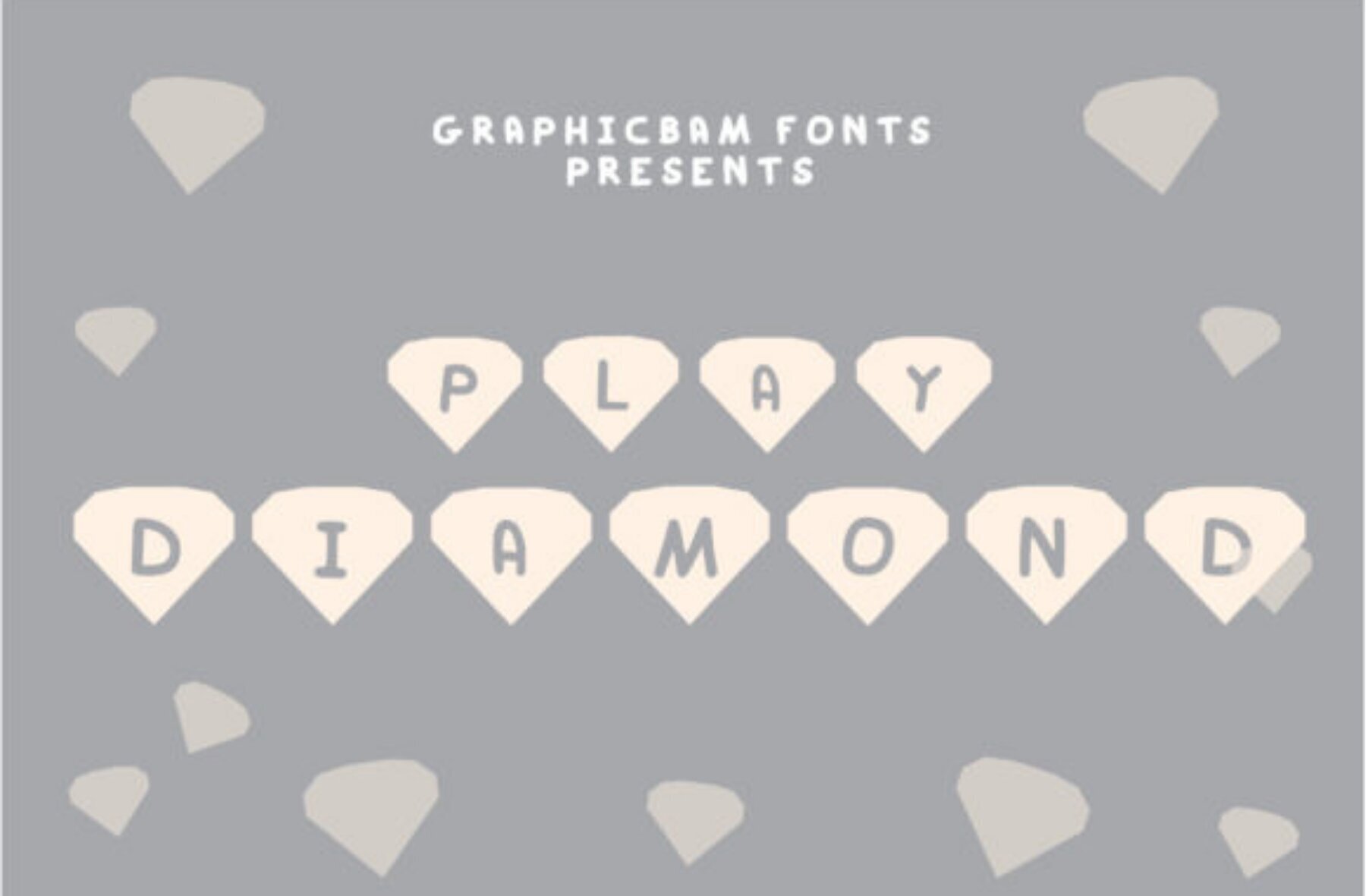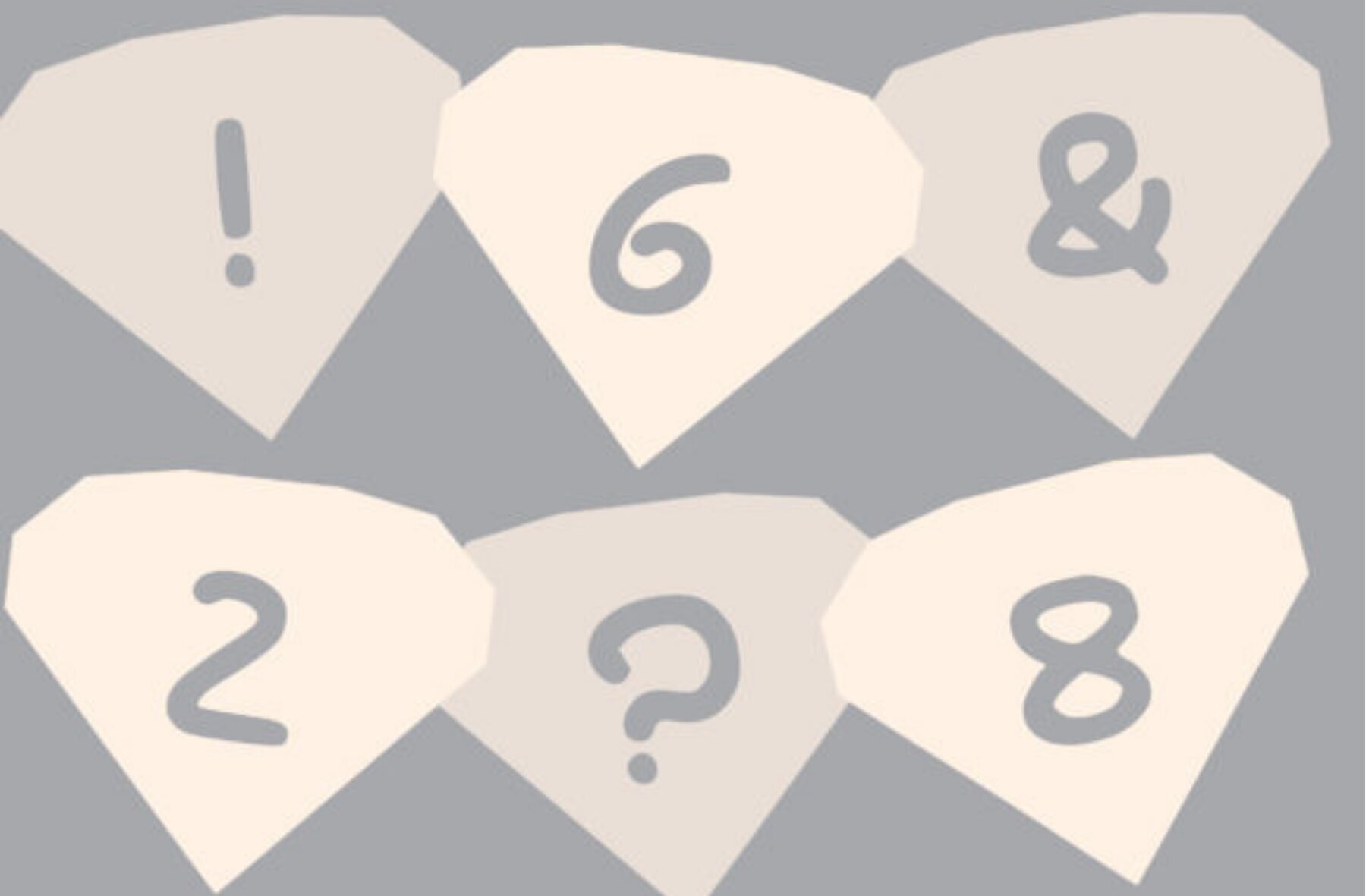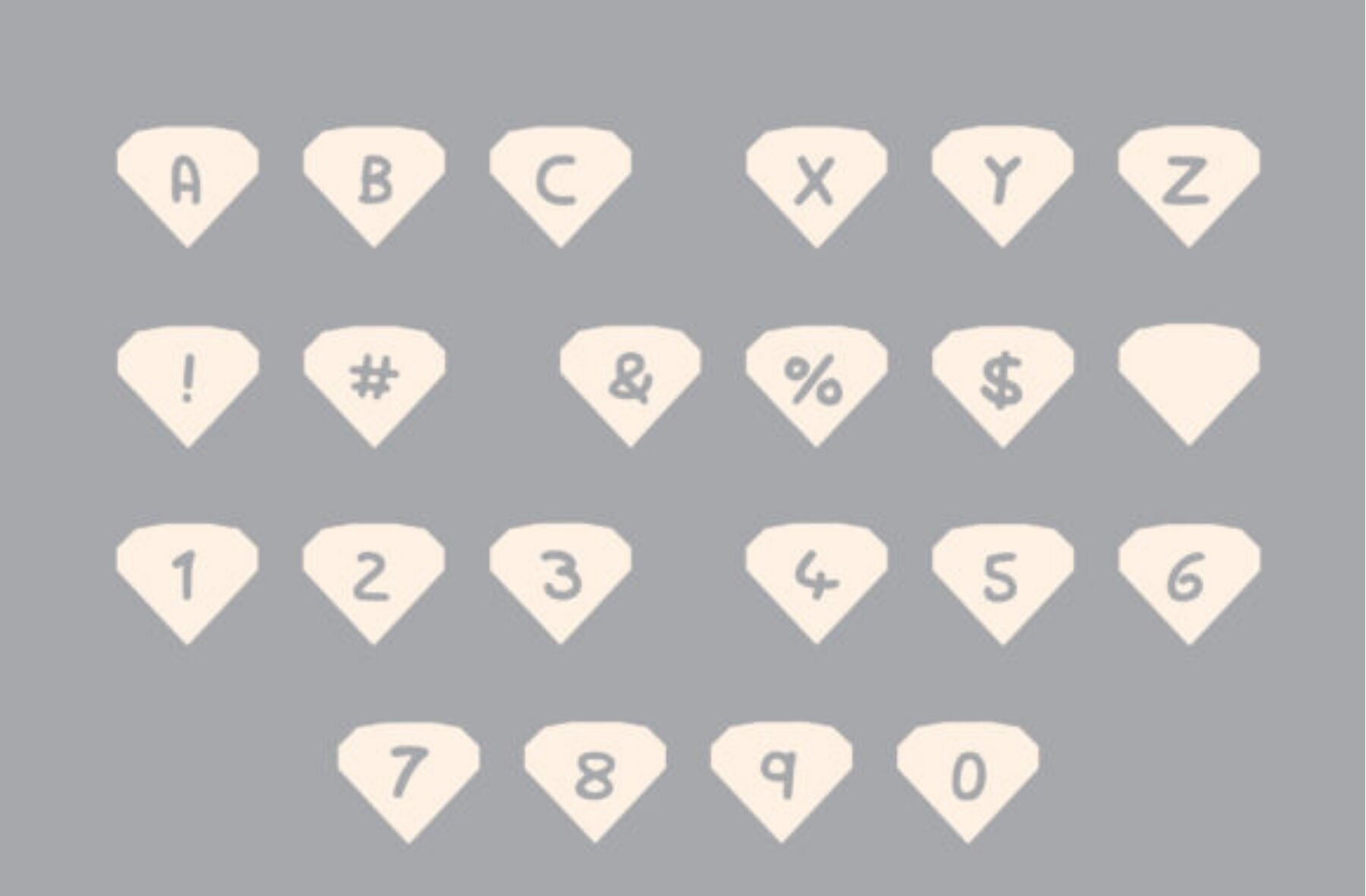
Play Diamond Font
Play Diamond Regular
Discover the intriguing charm of Play Diamond, a decorative font that adorns each character with a stylish diamond. This unique feature makes it a standout choice for adding visual interest to your design projects, ensuring your work captures immediate attention. Enhance your creative toolkit with Play Diamond. Its captivating design enhances aesthetics across a range of applications.Play Diamond: Decorative Elegance